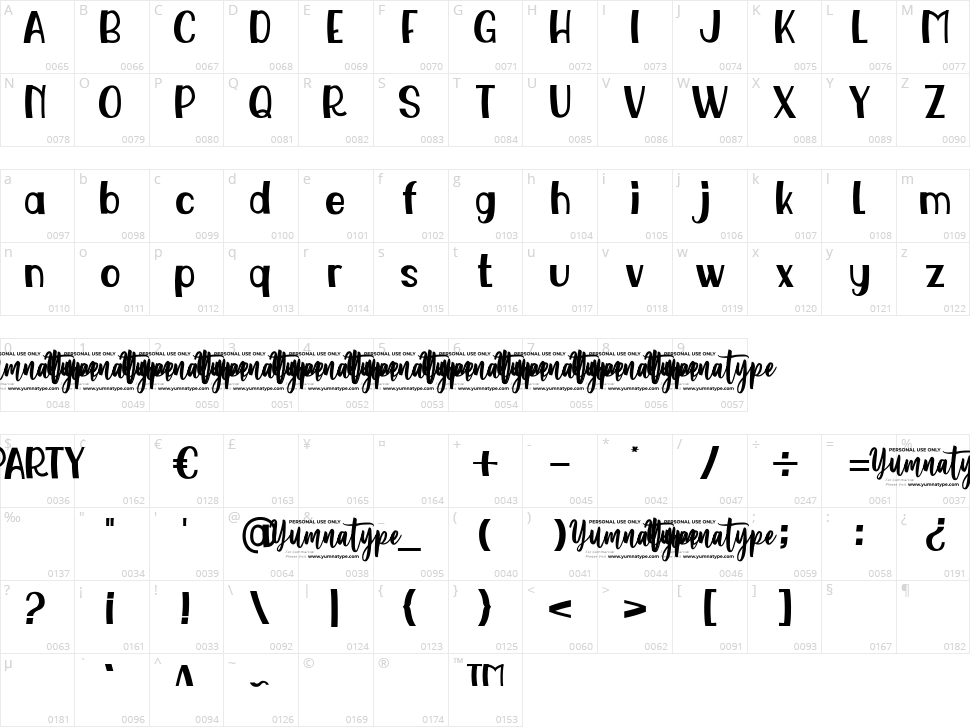
Awesome Party Display
Introducing Awesome Party Font Duo with Doodles. Awesome Party is a beautiful monoline font and combine
with a beautiful display font . This font is suitable for any design like branding, quotes, t-shirt printing and etc.
Introducing Awesome Party Font Duo with Doodles. Awesome Party is a beautiful monoline font and combine
with a beautiful display font . This font is suitable for any design like branding, quotes, t-shirt printing and etc.